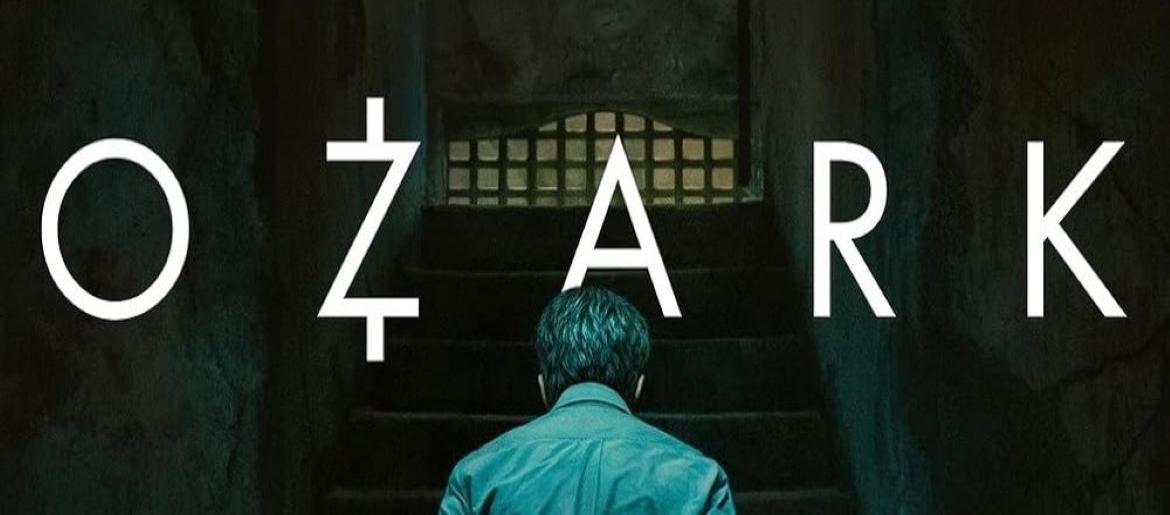
Ozark Font
The Ozark Font perfectly captures the show’s dark and suspenseful tone with its minimalist, geometric design. The logo uses Avenir Next, a sleek sans-serif typeface whose clean lines convey simplicity, while its subtle spacing and styling give it an unsettling, tense feel. Elements like crosshairs or symbolic accents in the lettering add hidden meaning, reflecting crime, danger, and survival without words.
About Ozark
Ozark follows Marty Byrde and his family as they navigate money laundering and cartel threats in the Missouri Ozarks. The series is tense, calculated, and shrouded in danger, much like the font itself. Its understated yet dramatic typography mirrors the show’s atmosphere of suspense, strategy, and high stakes, pulling viewers into the story from the very first scene and reinforcing the sense of unease that defines the series.